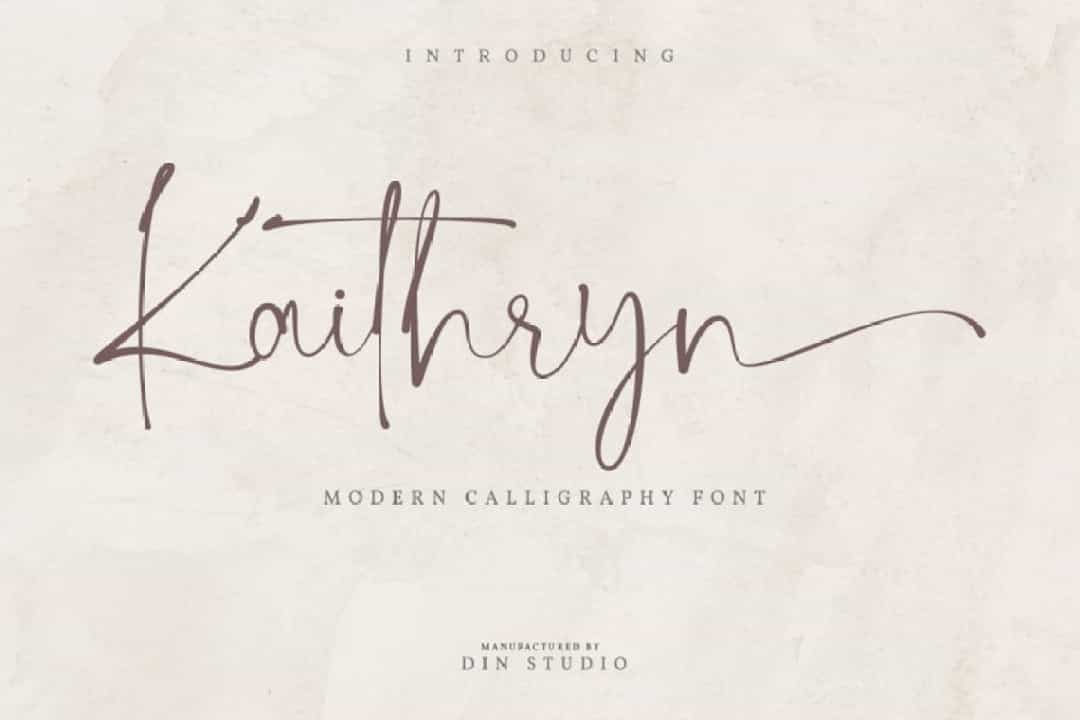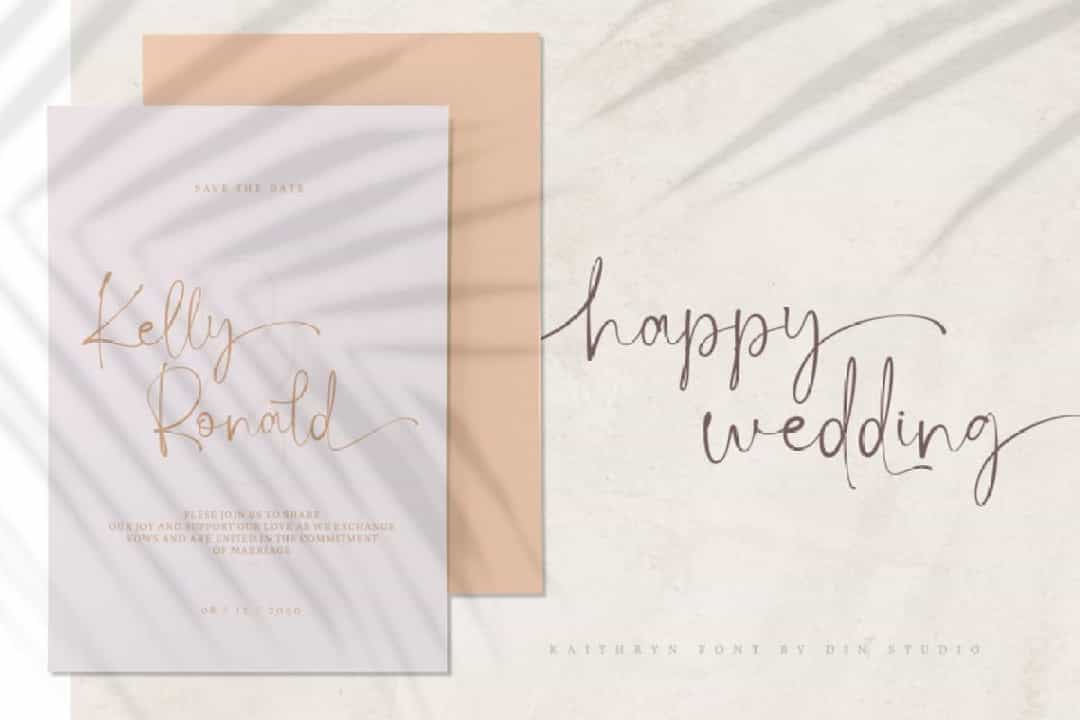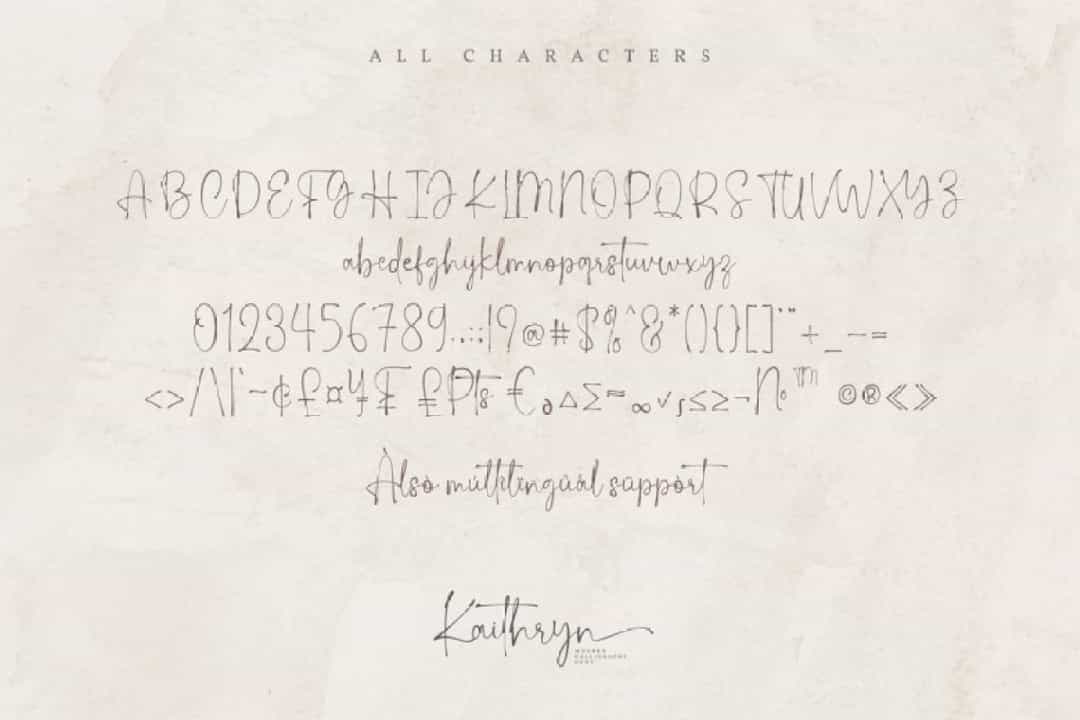
Kaithryn is a beautiful signature script font with a handwriting style that is based on a font, the presence of alternates and ligatures that mimic hand written text rather than typed text. Developed by Din Studio font designer this font is suitable for branding, logos, weddings, and quotes.